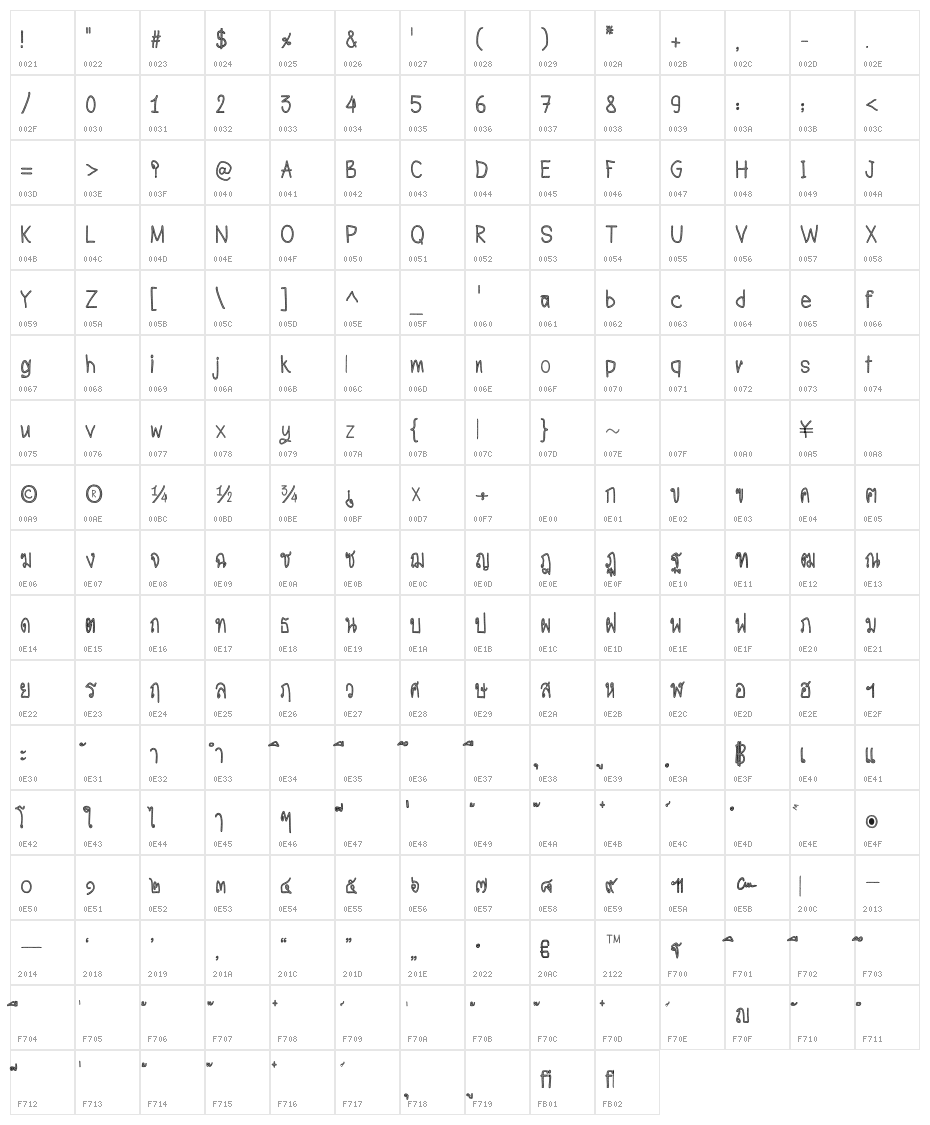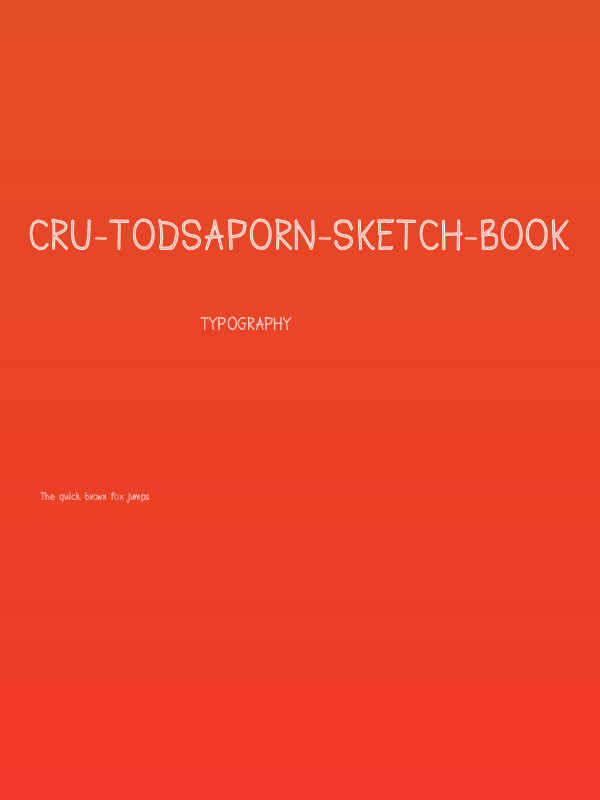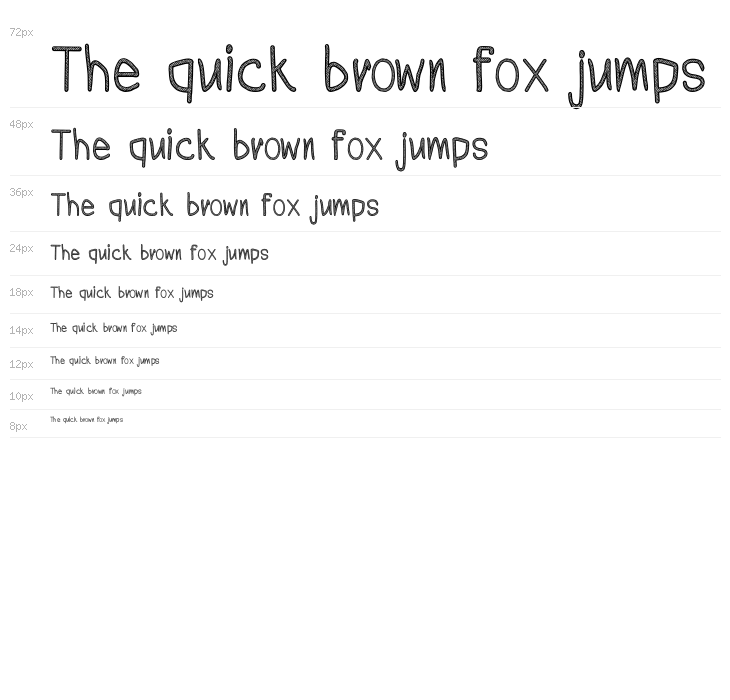
CRU-Todsaporn-sketch-book Font
CRU-Todsaporn-sketch-book Description
This font features a playful and sketch-like design, reminiscent of hand-drawn letters. Each character is outlined with a textured, pencil-like stroke that gives it a casual and artistic feel. The uppercase and lowercase letters maintain a consistent style, with rounded edges and a slightly irregular form that adds to the hand-crafted appearance. Numbers and special characters follow the same design principles, ensuring a cohesive look across all glyphs. The font's unique style makes it stand out, offering a creative and informal touch to any project.
| Overall Style | Artistic, Casual |
| Use Case | Headlines, Posters, Creative projects |
| Proposed Projects | Ideal for children's books, creative posters, casual invitations, and artistic branding. |